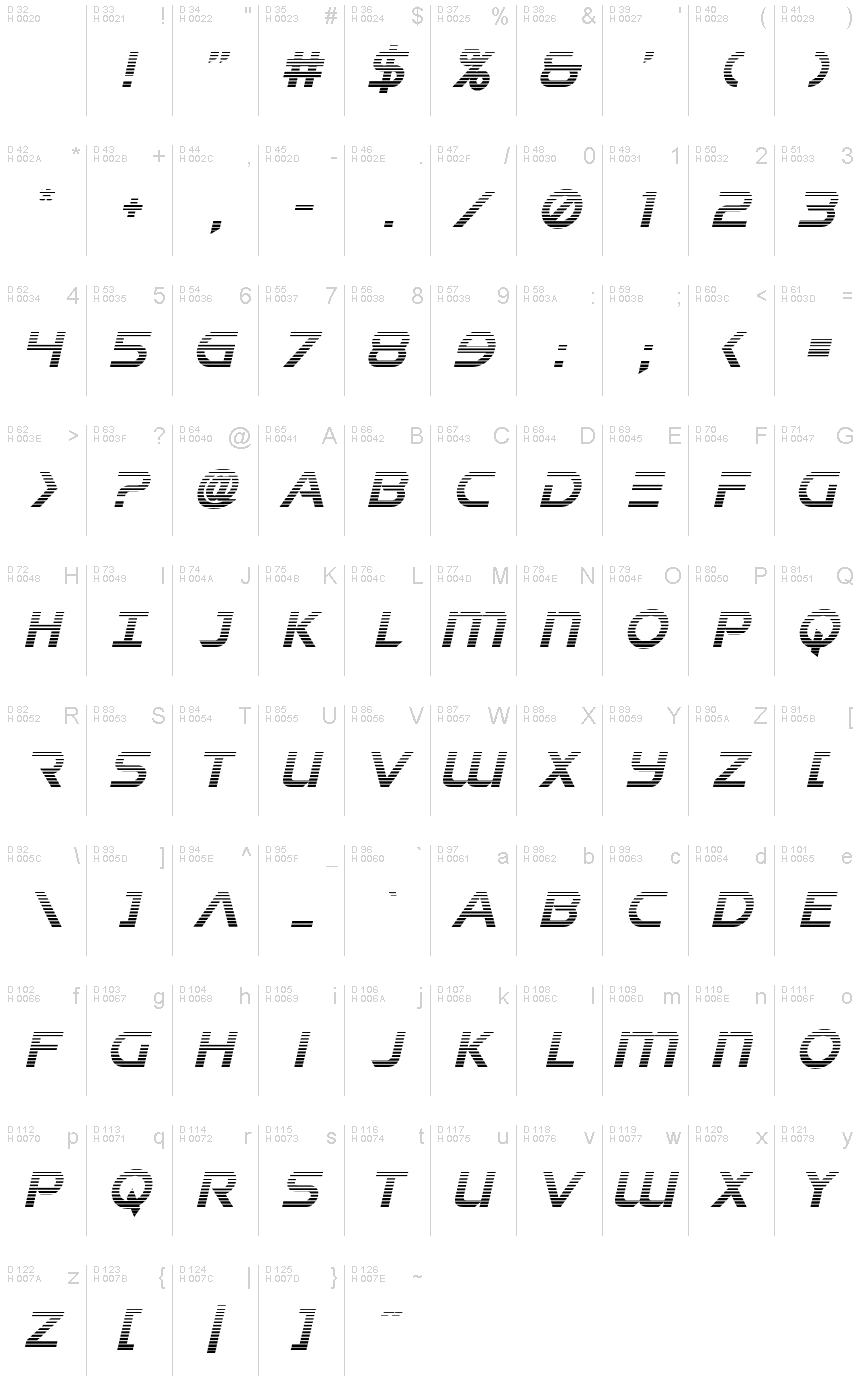
Singapore Sling Gradient Ital
Experience the futuristic elegance of Singapore Sling Gradient Italic, a captivating display font meticulously crafted by Iconian Fonts. With its techno-inspired sans serif style and expanded width, this font exudes confidence and sophistication. Its unique gradient effect adds depth and dimension to any design project, making it perfect for eye-catching logos, sleek website headers, cutting-edge advertisements, and even high-tech gaming interfaces. Unleash your creativity and take your designs to new heights with the dynamic versatility of Singapore Sling Gradient Italic.